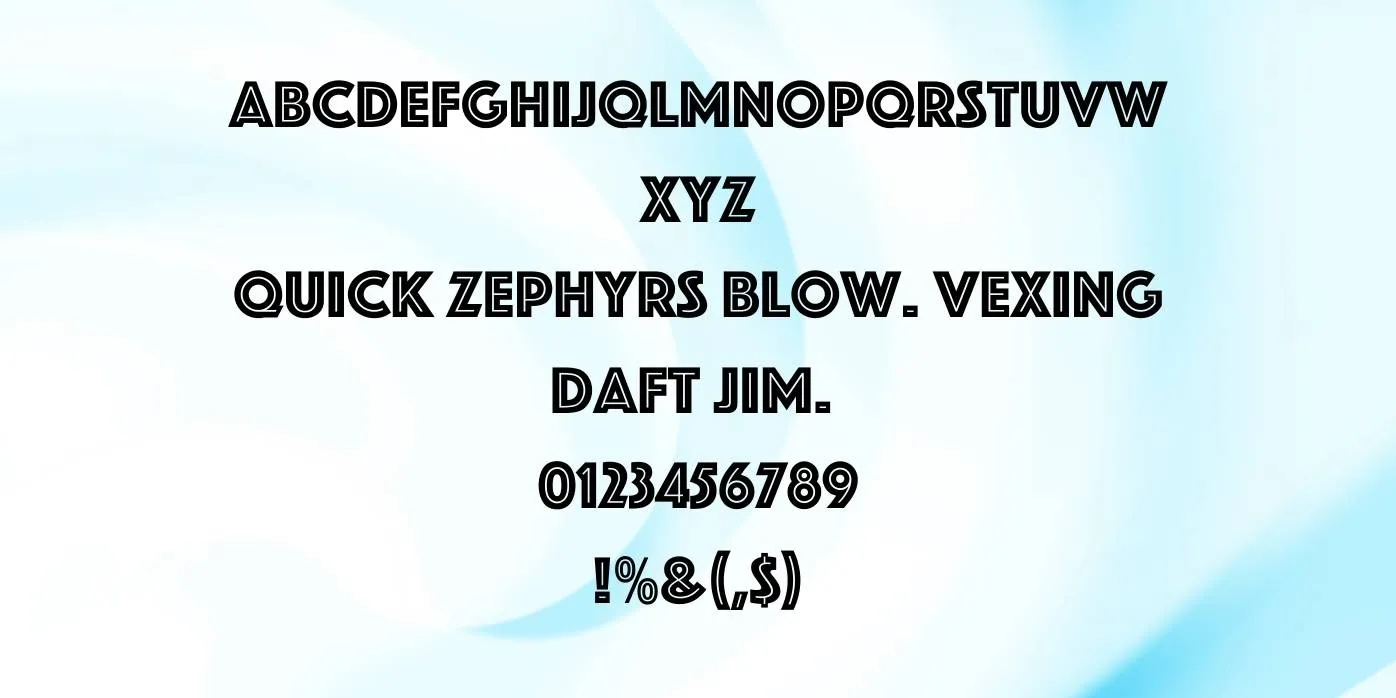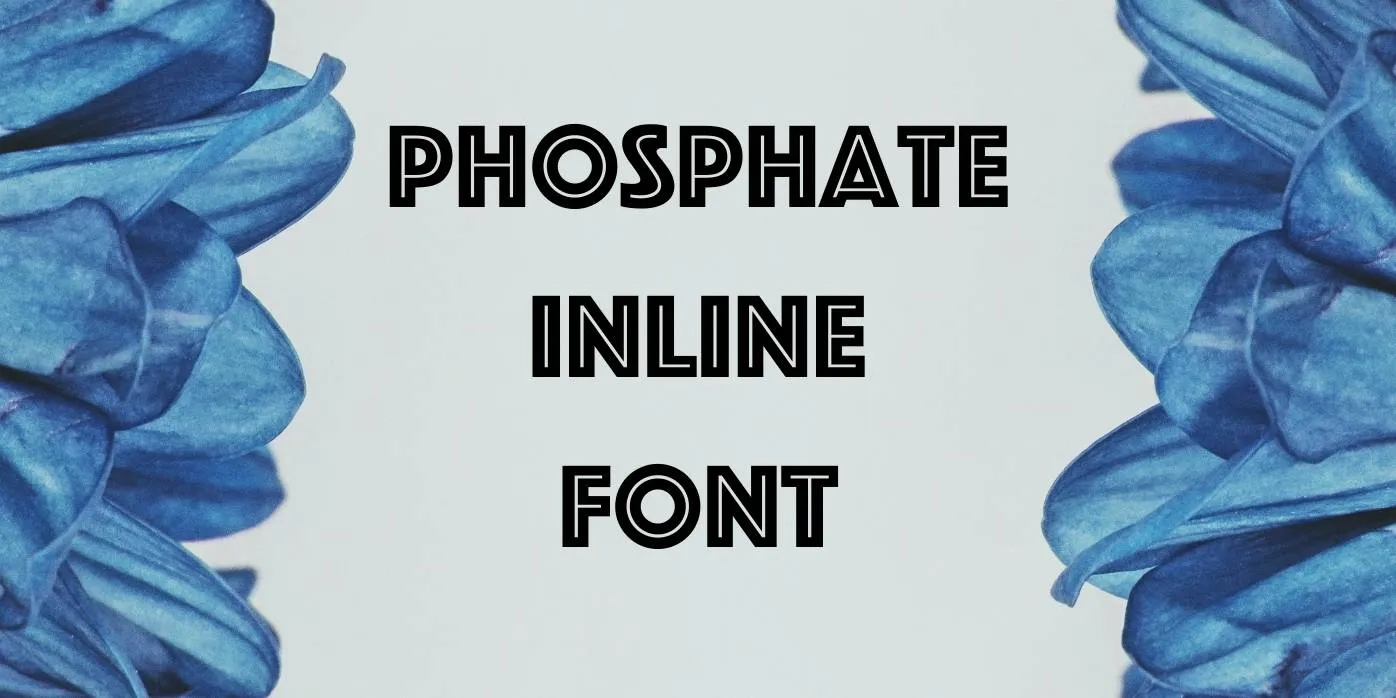
Phosphate Inline Font
Phosphate Inline Font is smooth, beautiful, and condensed typeface that is designed by Steve Jackaman. The font family belongs to a display typeface family. It is This typeface is visionary for designing small and large kinds of operations, Posters, and Advertisements boards. The characters in this font are made in such a way that they are empty on the inside while the outside has thick strokes and its corners are very sharp.
It is available as TTF features one style that is very legible for the user. You can effortlessly blend and match with other display typefaces to originate a bunch of gorgeous and splendid designs. The font uppercase contains only K and Y alphabets while its lowercase letters have all alphabetic other than it has symbols, punctuations, and numbers as well.